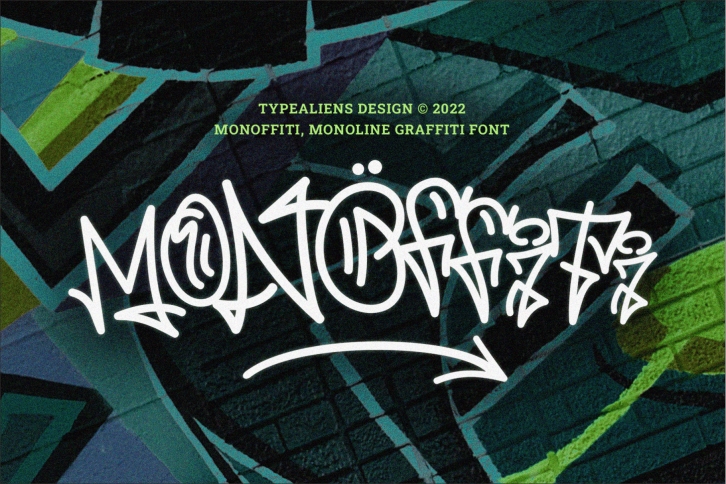
Monoffiti is a modern graffiti display font with monoline-style strokes, suitable to support urban art or street art designs. In addition, it can be used for fashion designs related to works of art, or by artists who make merchandise designs.